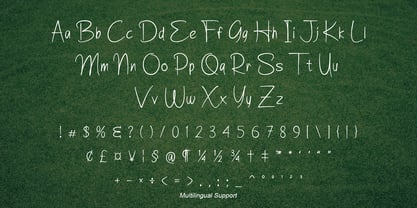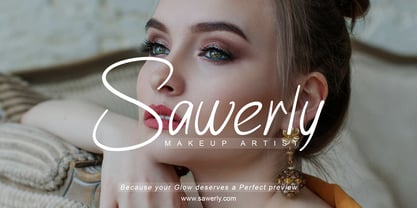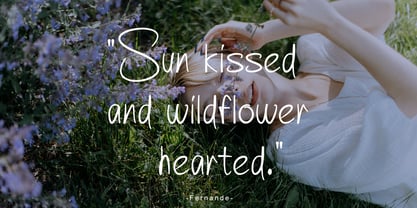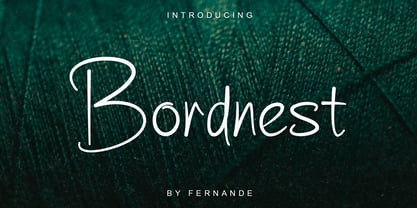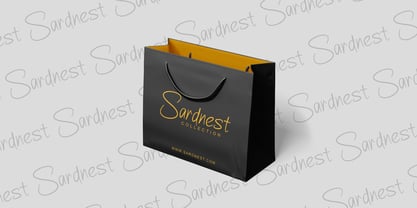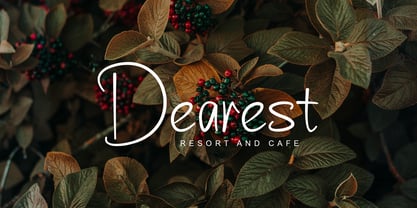
Bordnest
by Fernande
Introducing Bordnest, a warm and expressive handwritten font designed to bring a natural and personal touch to your designs. Featuring smooth strokes, balanced letterforms, and a relaxed writing flow, Bordnest feels friendly, authentic, and approachable. This font is perfect for branding, quotes, invitations, logos, packaging, social media content, and lifestyle designs. Bordnest performs beautifully in both short phrases and longer text, maintaining clear readability. It also includes multilingual support, making it suitable for a wide range of international design projects.